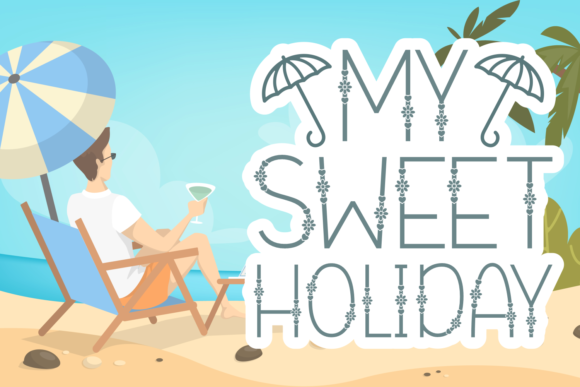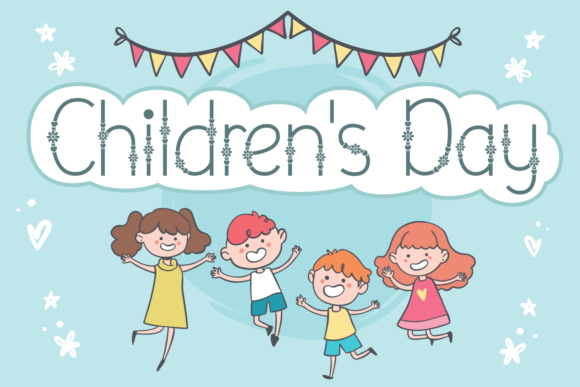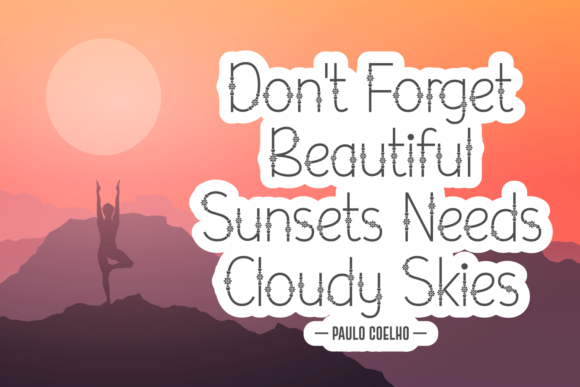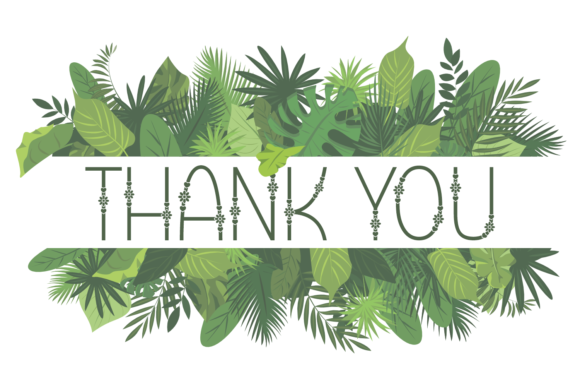
Introduction to Shine Flows Font
As a designer, you’ve probably had those moments where you stumble upon the perfect font for your project. The one that instantly elevates your design and makes it shine. For me, that moment came when I discovered the Shine Flows Font – a beautiful, hand-drawn font adorned with delicate flowers and heart details on each character. It’s the perfect combination of whimsy and elegance, making it an ideal choice for any creative project.
With its high-quality design and transparent background, the Shine Flows Font is a valuable resource for designers looking to add a touch of personality to their work. Whether you’re creating summer cards, posters, or birthday invitations, this font is sure to make your design stand out. And the best part? It’s available for free download, making it an accessible design resource for designers of all levels.
Key Features of Shine Flows Font
- Unique, hand-crafted design with intricate details, perfect for adding a touch of elegance to any creative project
Honest Review: Shine Flows Font
I recently came across the Shine Flows Font, and I must say it’s been a pleasant surprise. As a designer, I’m always on the lookout for high-quality design resources to elevate my creative projects.
- ✨ The font is incredibly versatile, making it suitable for a wide range of design applications.
- ✨ The Shine Flows Font features a beautiful, modern design that’s sure to add a touch of elegance to any project.
- ⚠️ The font may not be the best choice for projects that require a transparent background, as it can be a bit tricky to work with.
Overall, I’m impressed with the Shine Flows Font, and I think it’s a great addition to any designer’s toolkit. While it may have a few limitations, its unique design and high quality make it a valuable resource for any creative project.
How to Use Shine Flows Font
Shine Flows Font Overview
The Shine Flows Font is a unique and versatile design resource perfect for adding a touch of elegance to your creative project. This high-quality font features a transparent background, making it easy to customize and integrate into your design.
Tips for Getting the Most Out of Shine Flows Font
To get the most out of the Shine Flows Font, consider the following tips:
- Experiment with different font sizes and styles to achieve the desired effect.
- Combine the Shine Flows Font with other design elements, such as images and graphics, to create a visually appealing design.
The Shine Flows Font is ideal for a variety of creative projects, including:
- Branding and logo design.
- Marketing materials and social media graphics.
Alternatives to Shine Flows Font
The Great Vibes Font is a high-quality, elegant script font that is perfect for creative projects, especially those that require a touch of sophistication and class. It features a transparent background, making it ideal for overlays and other design elements. When to use: wedding invitations, luxury branding, and high-end marketing materials. Compared to Shine Flows Font, Great Vibes Font has a more refined and polished look, making it suitable for formal events and occasions.
Pacifico Font is a beautiful, modern script font that is perfect for creative projects that require a relaxed, beachy vibe. It features a clean and minimalist design, making it ideal for web design and digital marketing materials. When to use: summer campaigns, outdoor events, and beach-themed branding. Compared to Shine Flows Font, Pacifico Font has a more casual and laid-back look, making it suitable for projects that require a relaxed tone.
Alex Brush Font is a high-quality, elegant script font that is perfect for creative projects that require a touch of sophistication and elegance. It features a transparent background, making it ideal for overlays and other design elements. When to use: luxury branding, high-end marketing materials, and formal events. Compared to Shine Flows Font, Alex Brush Font has a more refined and polished look, making it suitable for formal occasions and events.
Q: Can I use Shine Flows Font with a transparent background?
Yes, Shine Flows Font is designed to work seamlessly with a transparent background, making it perfect for designs that require a high level of customization and flexibility.